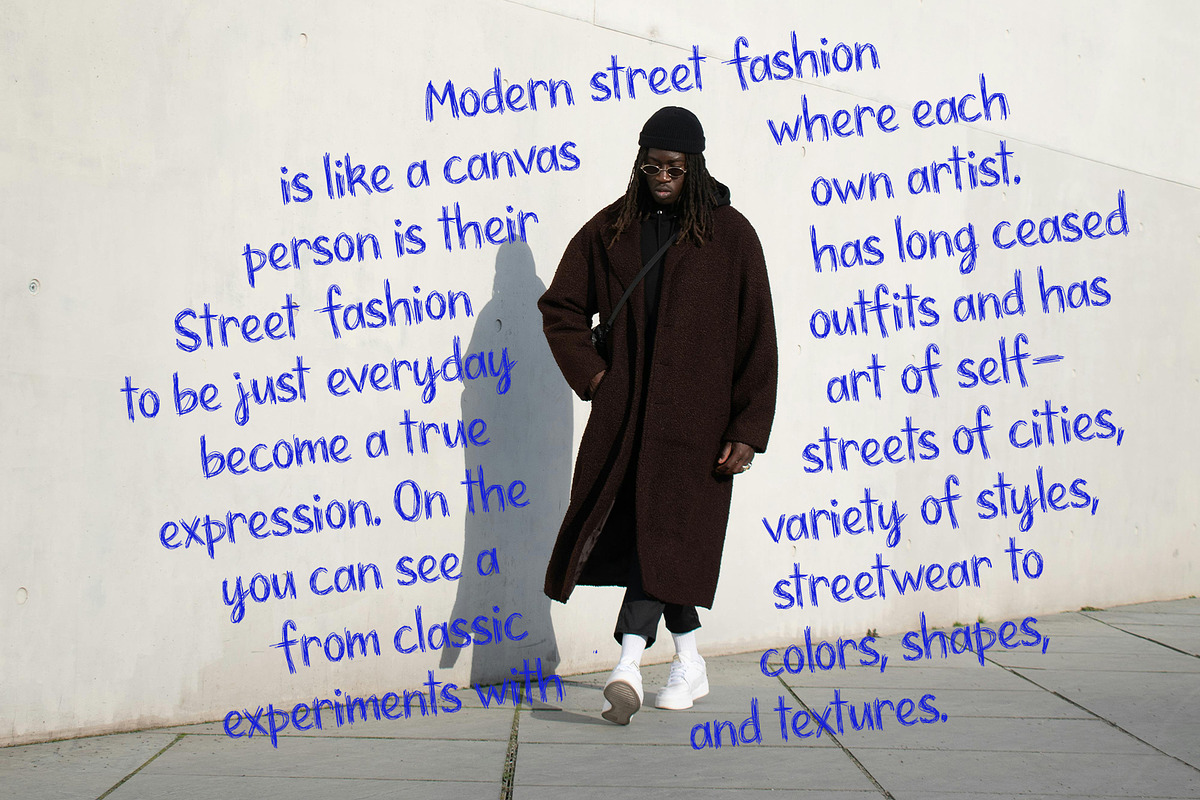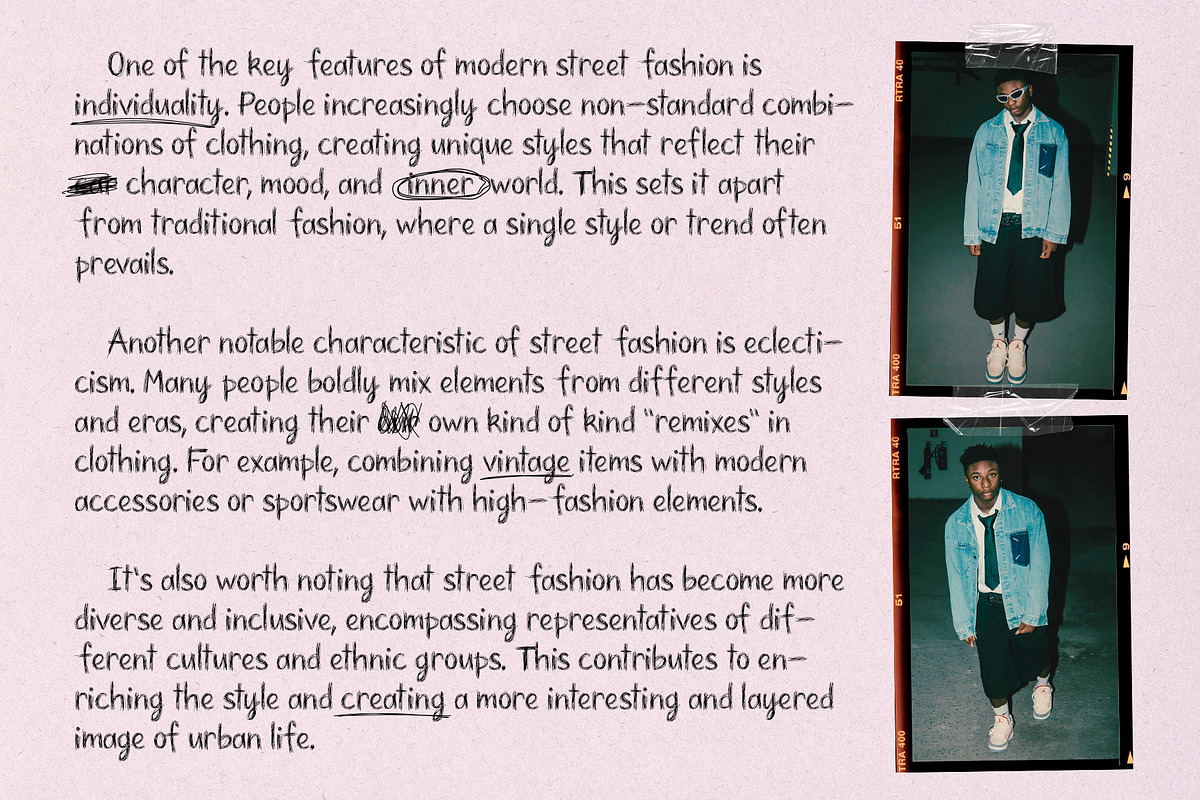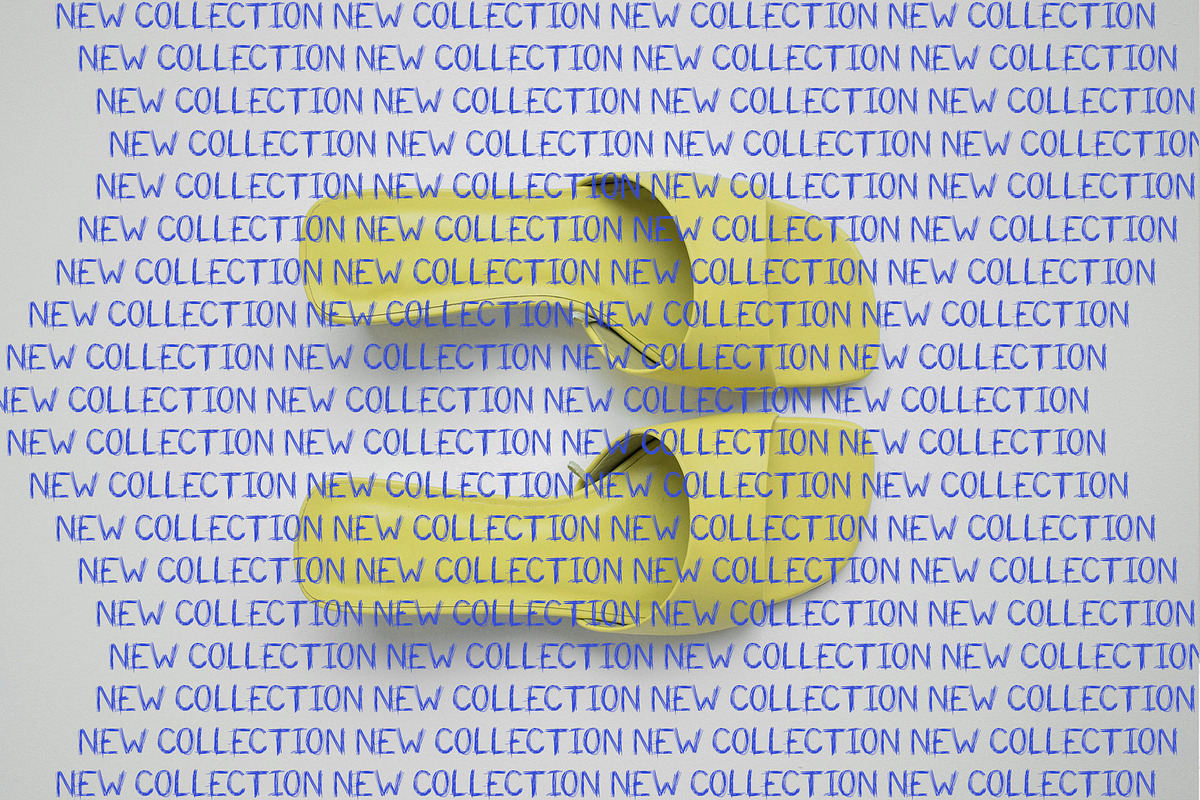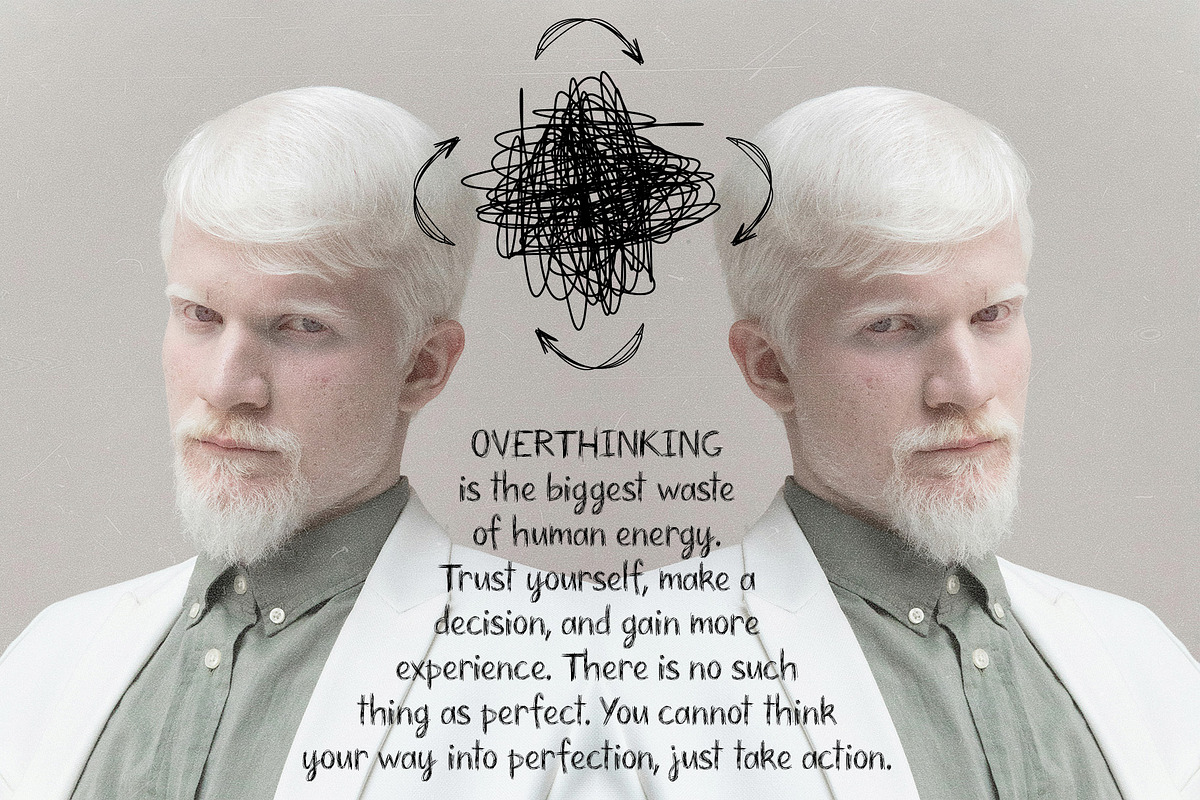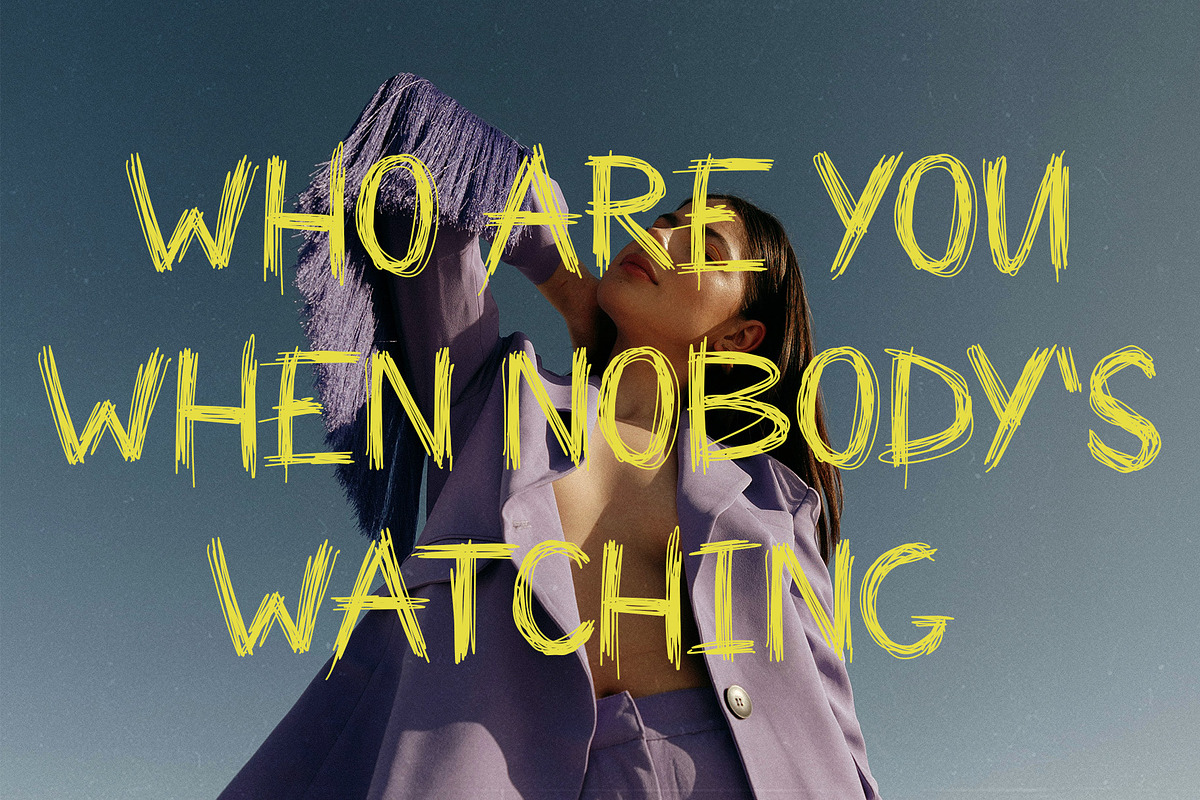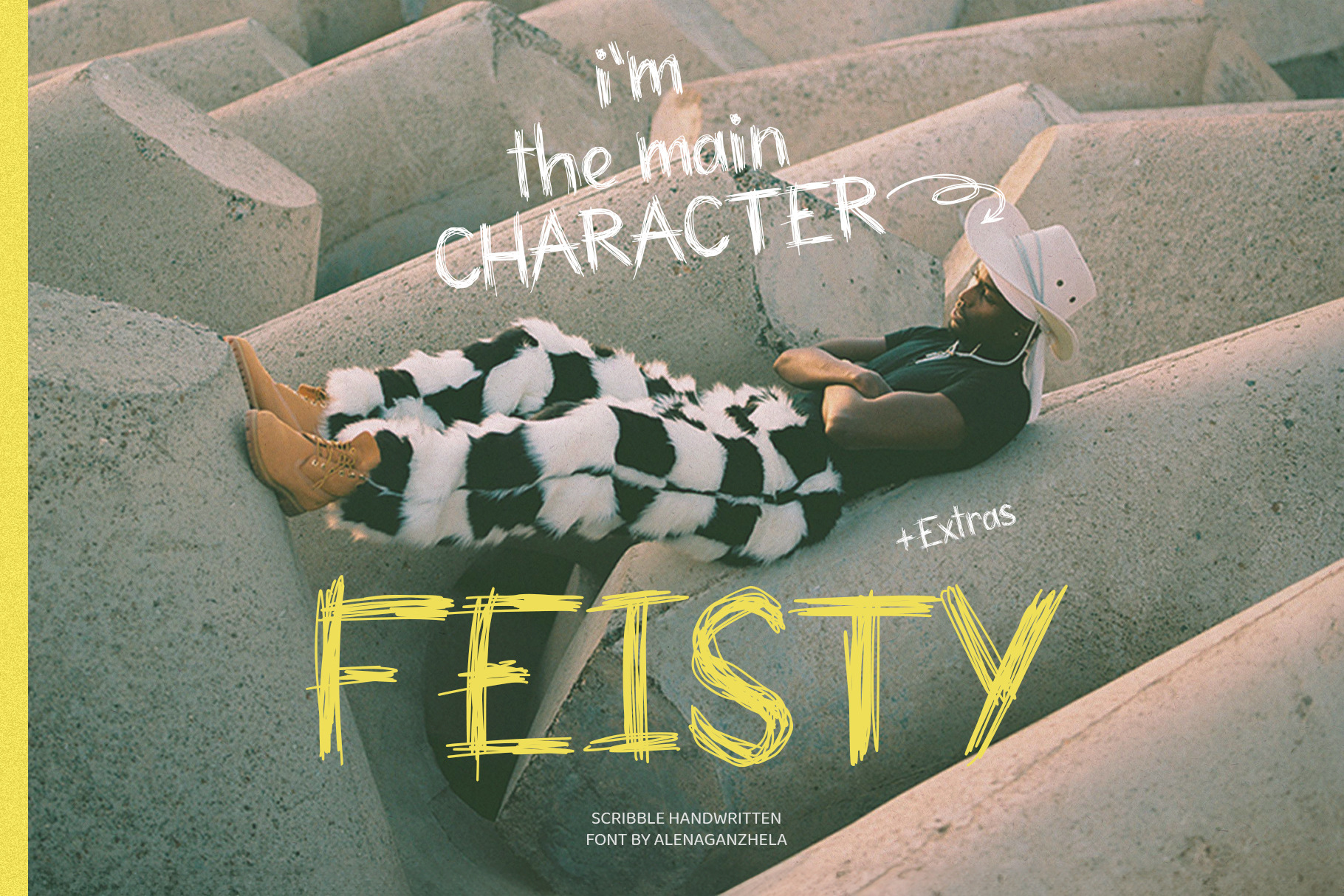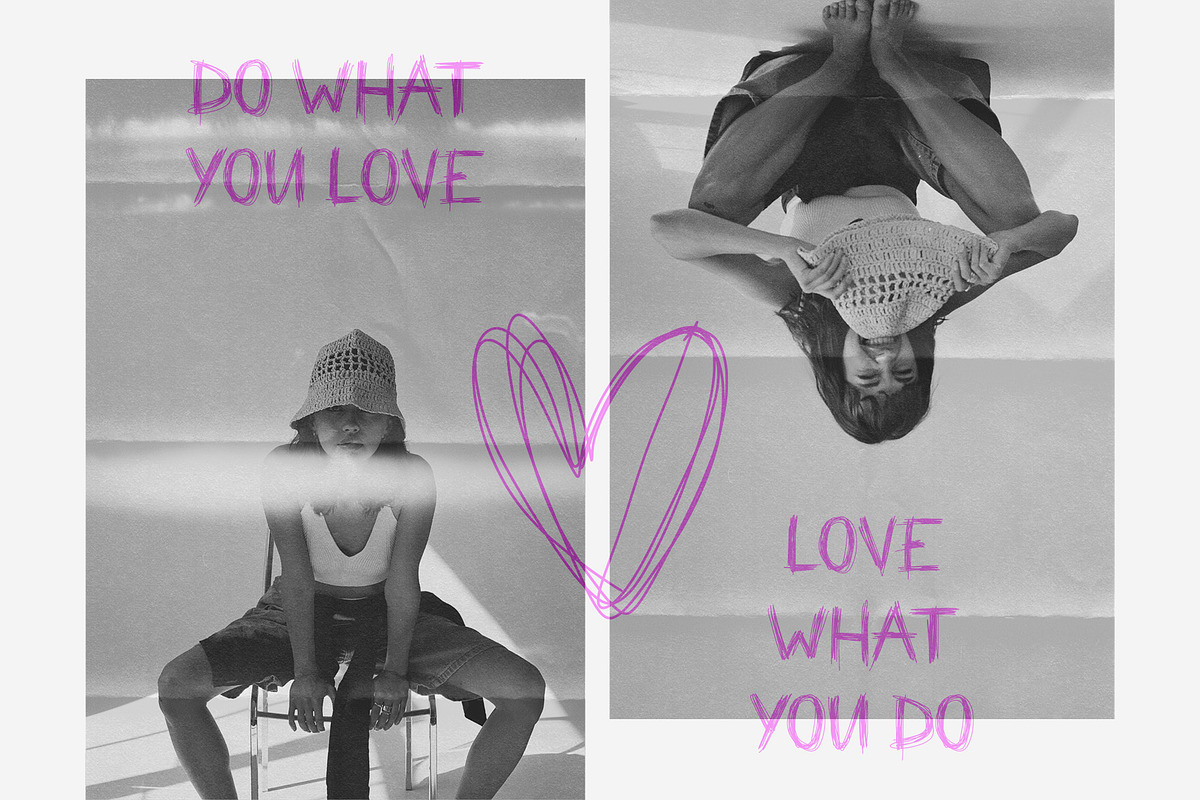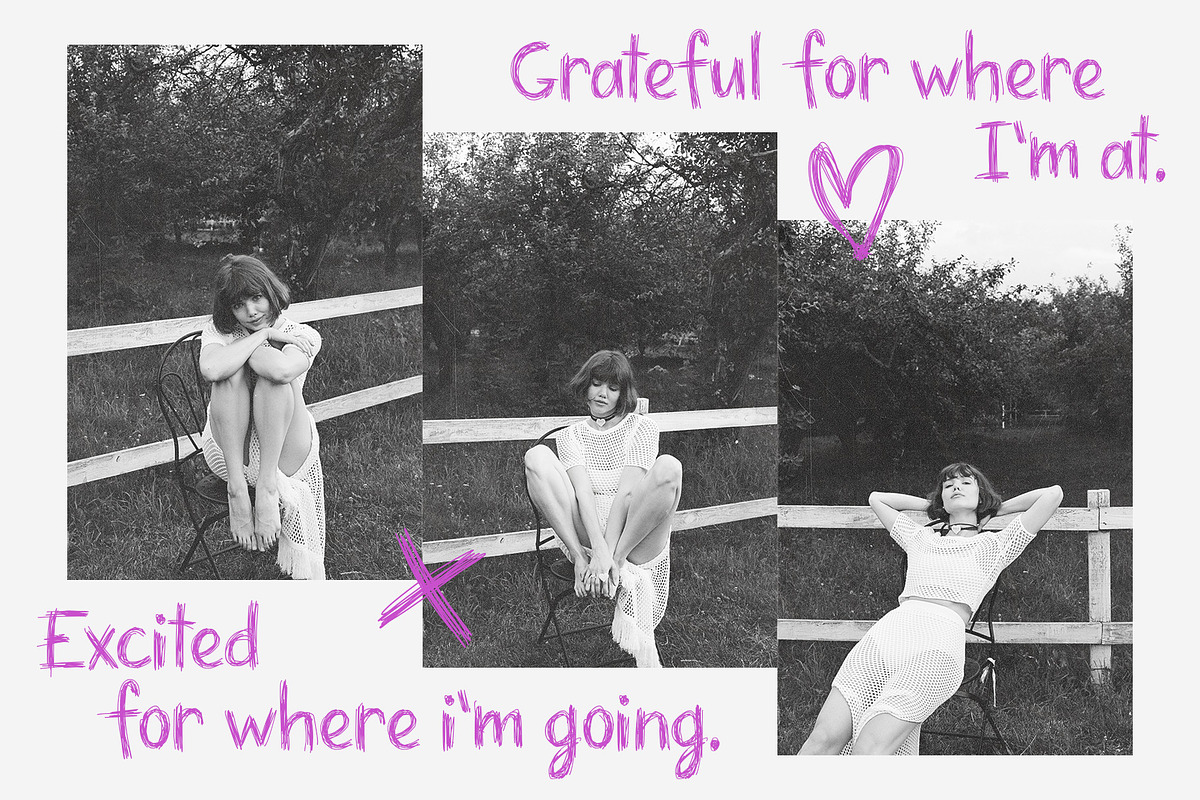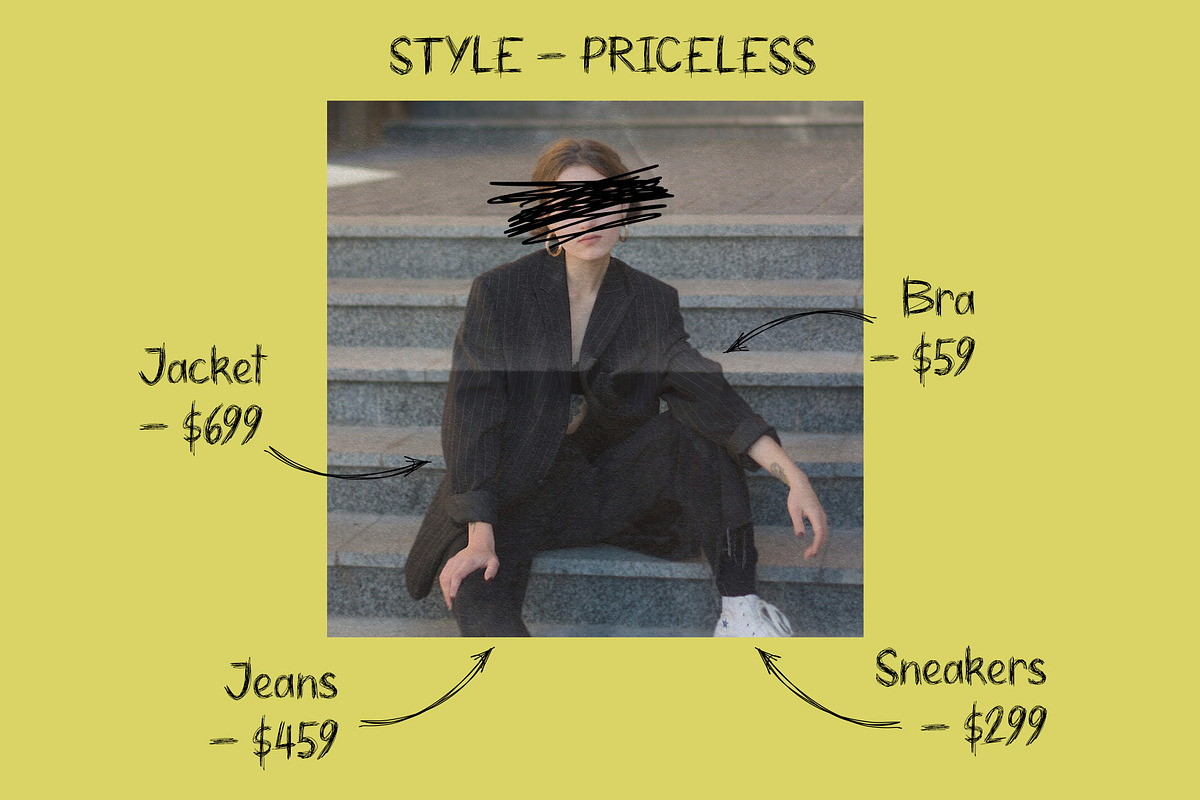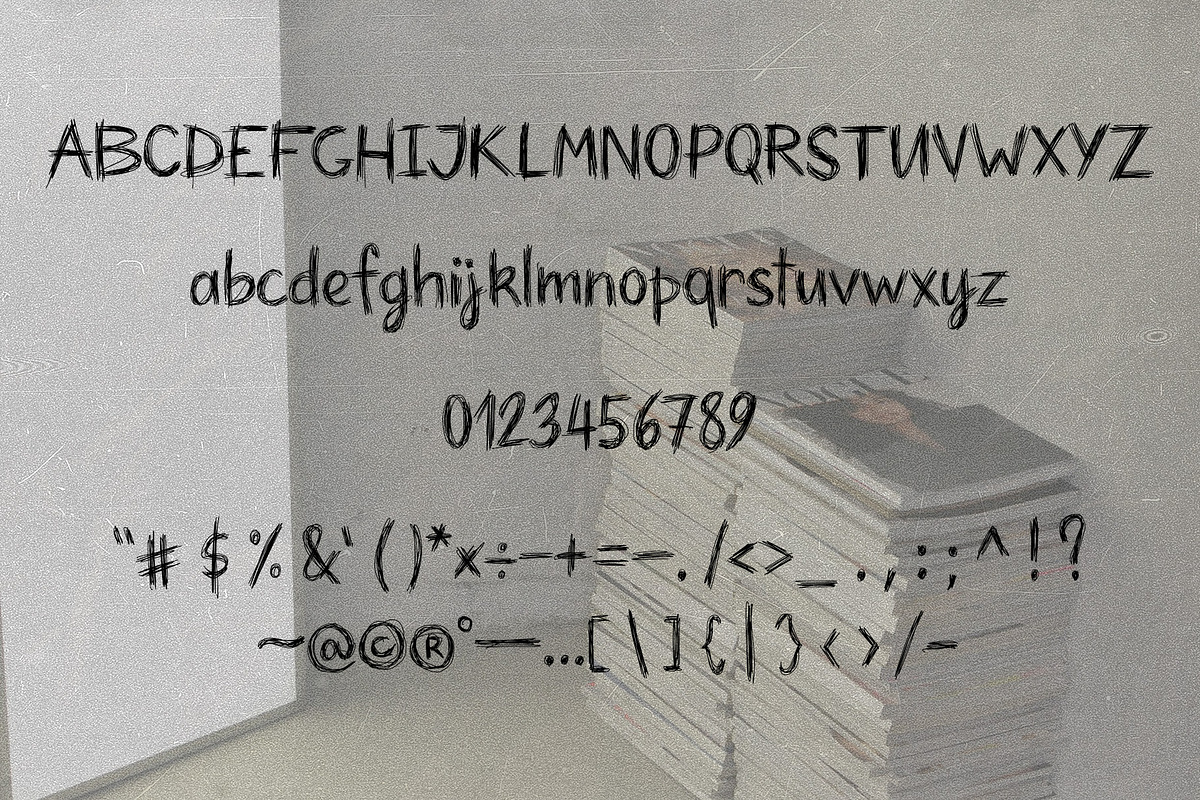
FEISTY - scribble handwriting font
Imagine a solitary guy, a bit of a fashionista, art in motion, blending the unblendable. His solitude became his strength, and his style became a legend. Now, imagine this as a font, His name is a FEISTY - scribble handwriting font.